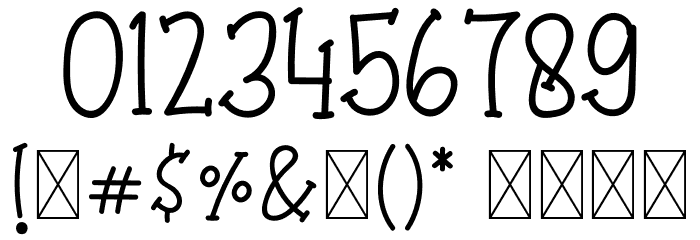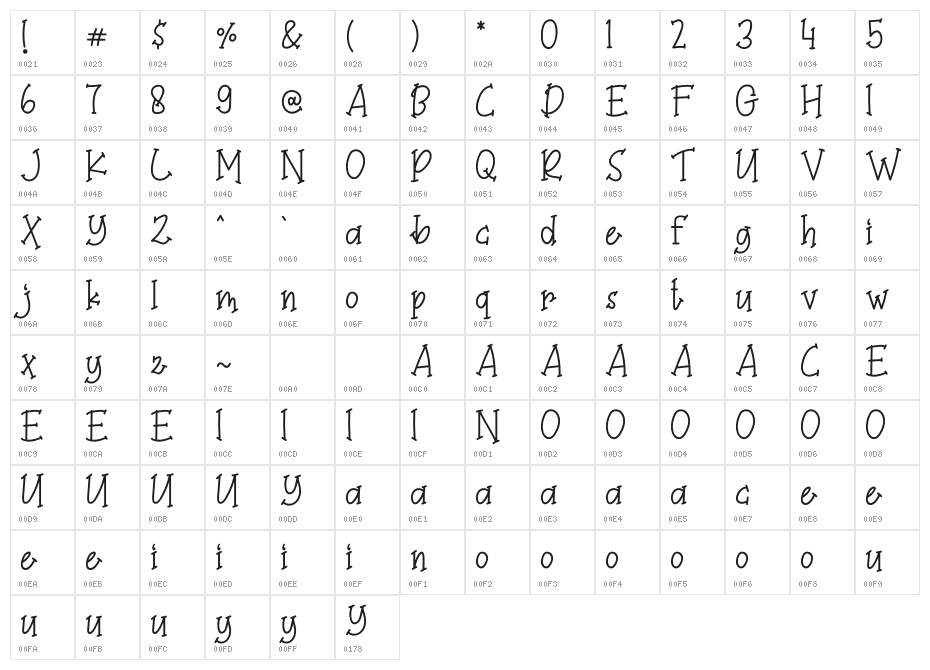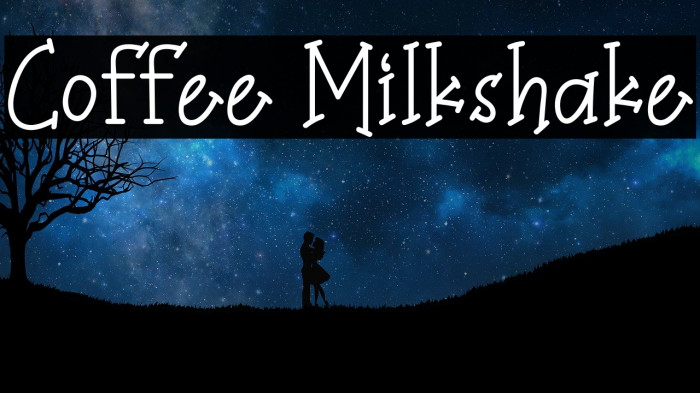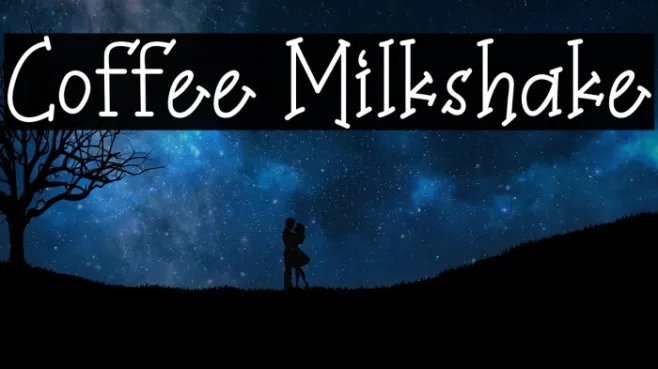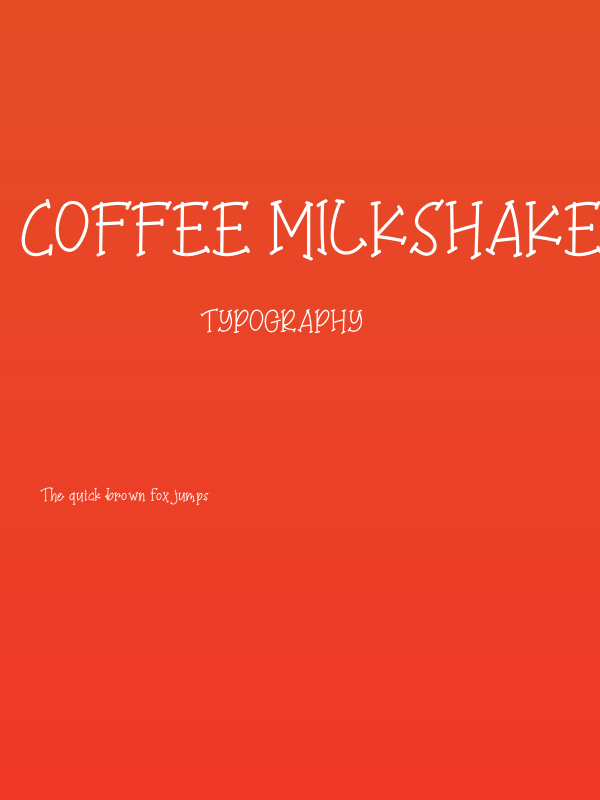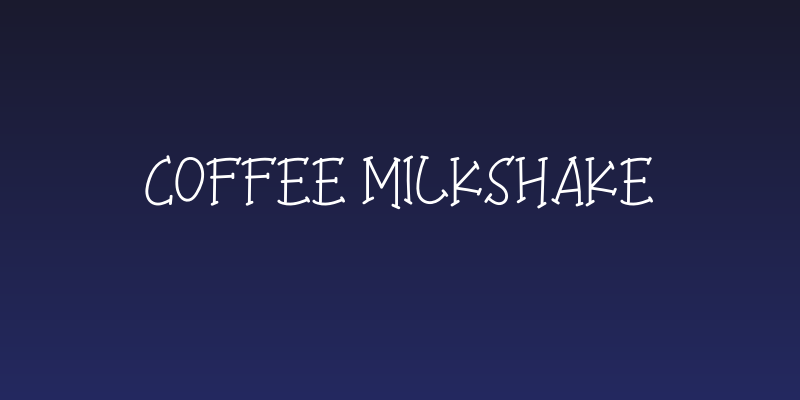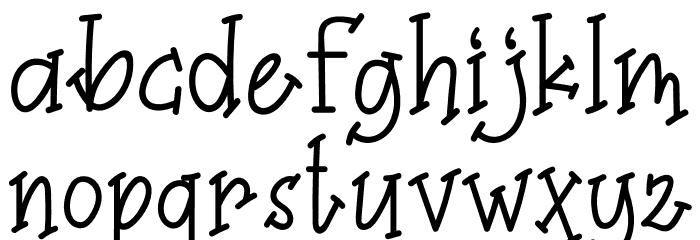
Coffee Milkshake Font
Coffee Milkshake Description
This font features a playful and whimsical style with a handwritten appearance. The characters are slightly irregular, giving it a casual and friendly feel. The uppercase letters are tall and narrow, while the lowercase letters have a more rounded and open form. The numerals are consistent with the overall style, maintaining the playful aesthetic. The special characters are well-integrated, adding to the font's versatility. This font is ideal for projects that require a personal touch, such as invitations, greeting cards, or children's book covers.
| Proposed Projects | Ideal for invitations, greeting cards, children's book covers, and playful branding. |